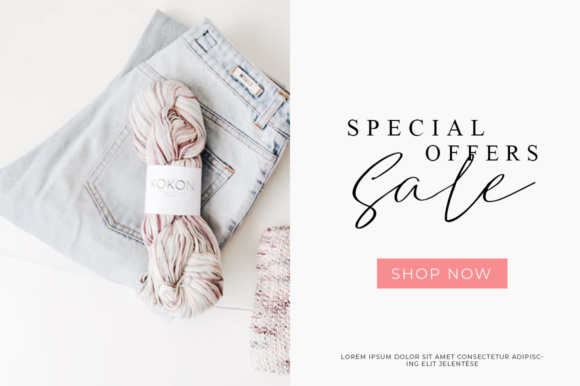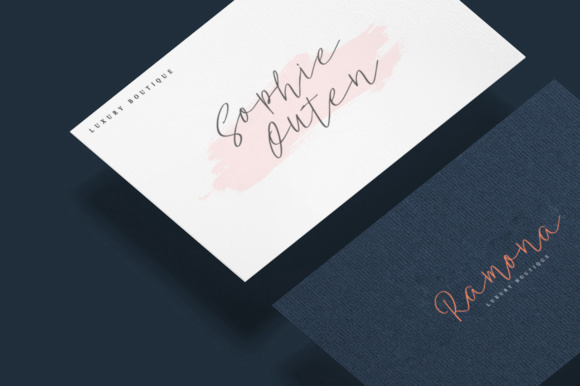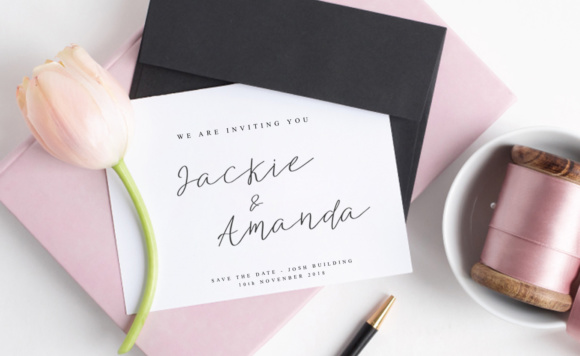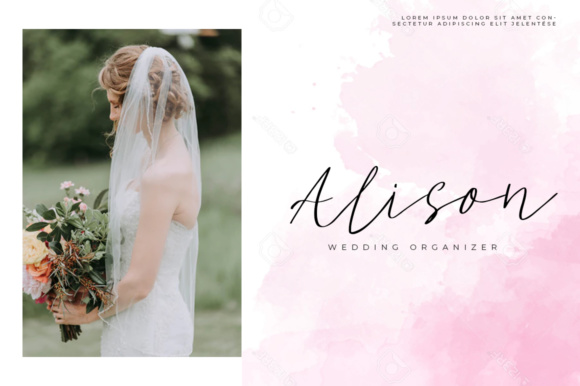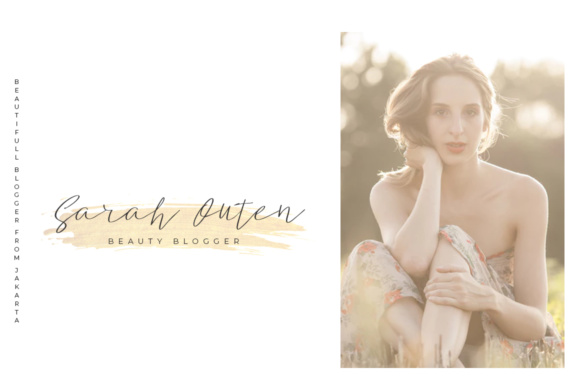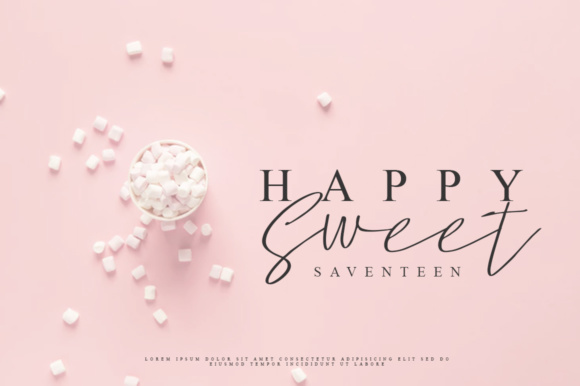
Introducing Analisa Font: The Perfect Minimalistic Signature Font for Your Designs
Are you a designer or crafter looking for a font that adds a touch of romance and charm to your designs? Look no further than Analisa Font, a beautiful minimalistic signature font with a tint weight that’s perfect for a variety of creative projects. In this article, we’ll take a closer look at Analisa Font and explore its features, uses, and benefits.
What is Analisa Font?
Analisa Font is a carefully crafted font designed to bring a sense of elegance and sophistication to your designs. Its minimalistic signature style features a delicate, cursive script with a subtle tint weight that adds a touch of warmth and personality to any text. Whether you’re creating a logo, branding materials, or social media posts, Analisa Font is the perfect choice for designers and crafters who want to add a romantic and charming touch to their work.
Key Features of Analisa Font
So, what makes Analisa Font so special? Here are some of its key features:
- Minimalistic signature style: Analisa Font features a clean and simple design that’s perfect for creating elegant and sophisticated text.
- Tint weight: The font’s subtle tint weight adds a touch of warmth and personality to any text, making it perfect for designs that require a bit of flair.
- Display or headline font: Analisa Font functions best as a display or headline font, making it perfect for titles, headings, and other prominent text.
Uses for Analisa Font
Analisa Font is a versatile font that can be used for a wide range of creative projects, including:
- Logos and branding: Add a touch of elegance and sophistication to your logo and branding materials with Analisa Font.
- Weddings and events: Create beautiful wedding invitations, programs, and other materials with Analisa Font’s romantic and charming style.
- Fashion and beauty: Use Analisa Font to add a touch of glamour and sophistication to your fashion and beauty designs, from labels and packaging to social media posts.
- Book covers and publishing: Add a touch of elegance and sophistication to your book covers and publishing materials with Analisa Font.
- T-shirts and apparel: Create beautiful and stylish t-shirts and apparel with Analisa Font’s delicate and cursive script.
- Instagram posts and social media: Use Analisa Font to add a touch of personality and flair to your Instagram posts and other social media materials.
Benefits of Using Analisa Font
So, why should you choose Analisa Font for your designs? Here are some of the benefits of using this beautiful font:
- Elegance and sophistication: Analisa Font adds a touch of elegance and sophistication to any design, making it perfect for high-end brands and creative projects.
- Romance and charm: The font’s romantic and charming style makes it perfect for weddings, events, and other designs that require a touch of personality.
- Versatility: Analisa Font can be used for a wide range of creative projects, from logos and branding to social media posts and book covers.
In conclusion, Analisa Font is a beautiful minimalistic signature font that’s perfect for designers and crafters who want to add a touch of romance and charm to their designs. With its elegant and sophisticated style, versatility, and ease of use, Analisa Font is the perfect choice for a wide range of creative projects. Whether you’re creating logos, branding materials, social media posts, or book covers, Analisa Font is sure to bring a touch of elegance and sophistication to your work.